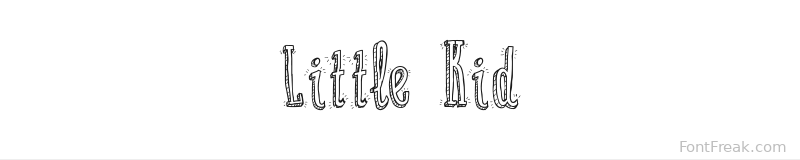
Little Kid
About Little Kid
The Little Kid font by Galdino Otten Fonts is a delightful display typeface that captures the playful essence of childhood. This font features a hand-drawn aesthetic, giving it a whimsical and charming appearance that appeals to both children and adults alike. The stroke weight is consistent and rounded, which adds to its friendly demeanor, while the slight irregularities in letterforms contribute to its handcrafted appeal. The spacing between characters is well-balanced, ensuring readability while maintaining a fun, casual vibe.
Little Kid is an excellent choice for various creative applications. It shines in children's book covers, where its playful design can engage young readers. Additionally, it works beautifully for birthday party invitations, capturing the joyous spirit of celebrations. The font is also well-suited for educational materials, making learning visually appealing for young learners. Small businesses, particularly in the children's market, can utilize this font in branded merchandise, signage, or promotional materials to connect with their target audience effectively.
What sets the Little Kid font apart is its ability to evoke nostalgia while remaining relevant in contemporary design contexts. Its friendly, approachable style makes it a go-to choice for projects aimed at children or those that require a lighthearted touch. With its charming visuals and versatile applications, the Little Kid font is sure to bring a smile to any design project.